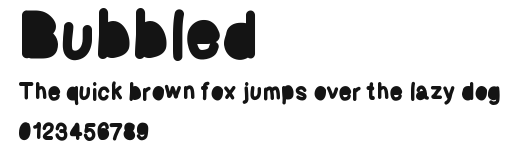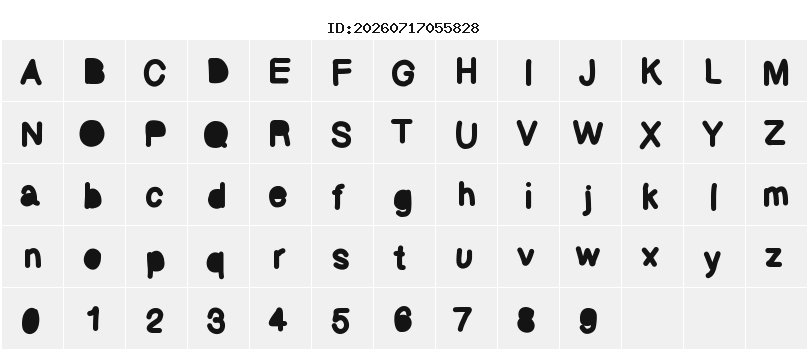
Bubbled Preview
• Font Name: Bubbled
• Full Font Name: Bubbled
• PostScript Name: Bubbled
About Bubbled.ttf
Bubbled.ttf is a modern, elegant sans-serif font designed for ultimate readability and visual harmony. Perfect for branding, headlines, web design, and print materials.